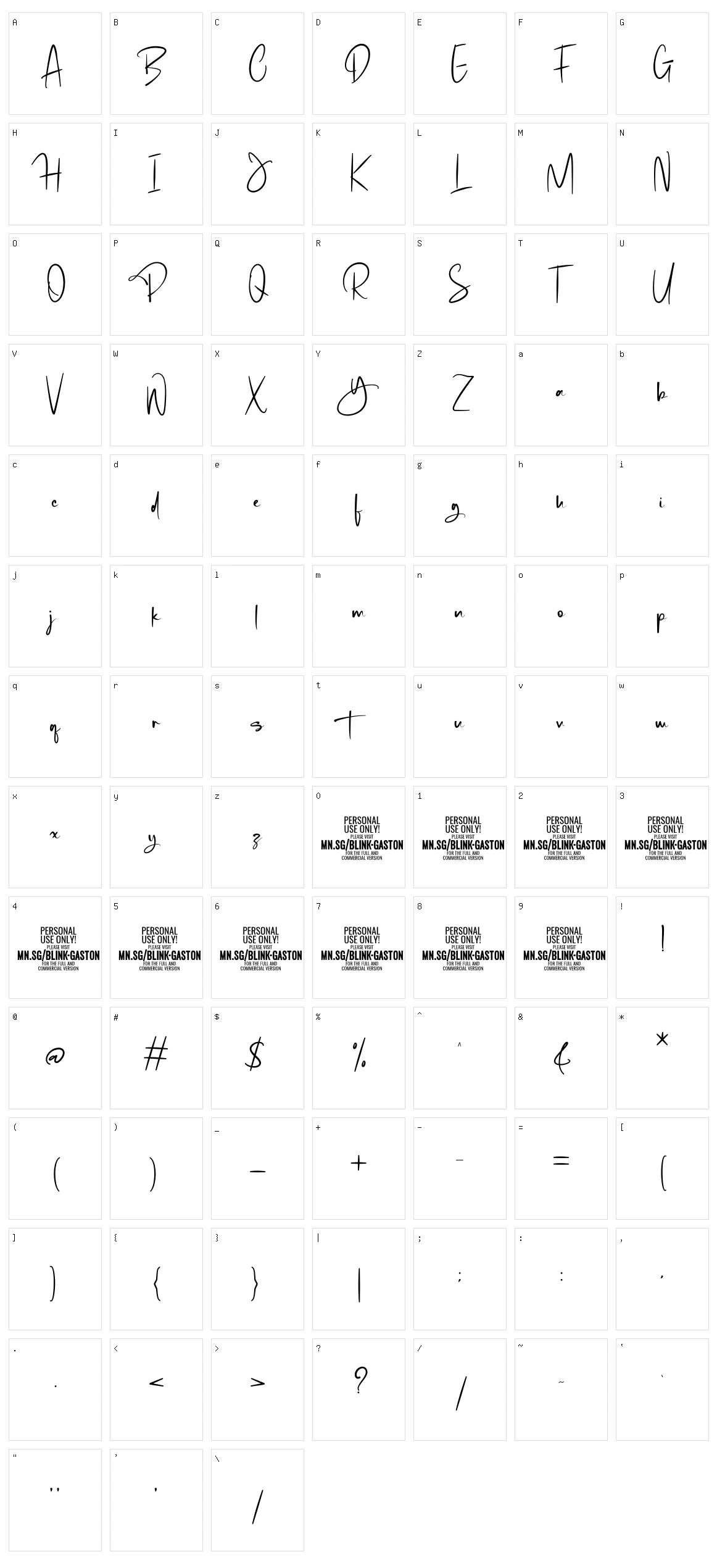
Blink Gaston is a script typeface.
The Barred Sans family consists of four styles:
Regular, Bold, Italic, Bold Italic, complimenting each other.
Use underscore _ anywhere in a word to make a swash.
Example: Hand_script
Use multiple underscores to make different swashes.
Example: Super____writers
The font is built with advanced OpenType functionality and has a guaranteed top-notch quality, containing stylistic and contextual alternates, ligatures and more features; all to give you full control and customizability.
It has extensive lingual support, covering all Latin-based languages, from Northern Europe to South Africa, from America to South-East Asia.
It contains all characters and symbols you'll ever need, including all punctuation and numbers.